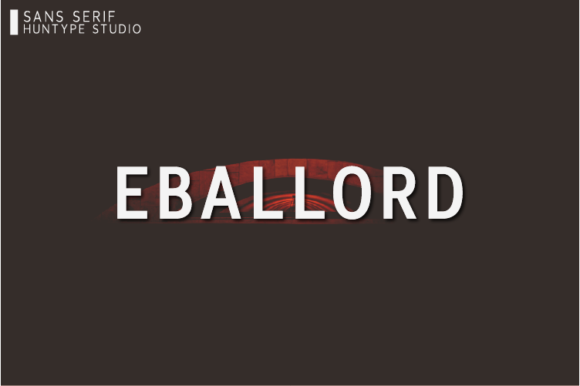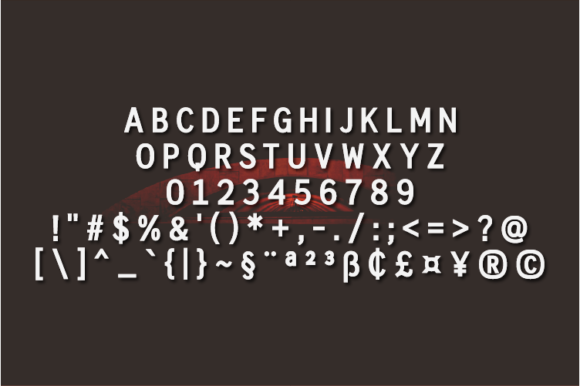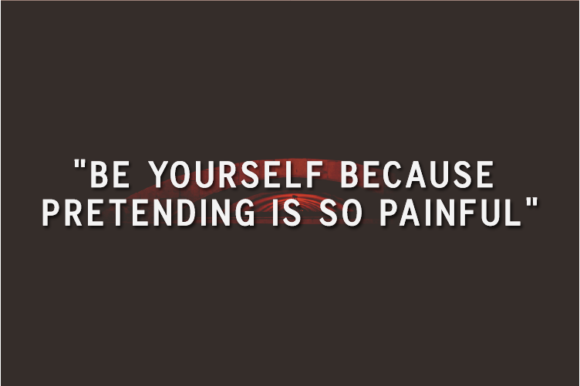
Have you ever stared at a blank page, waiting for the perfect font to bring your idea to life? That’s a familiar feeling for many designers and creatives. We’ve all been there, scrolling through font options, searching for the perfect match. And then, you see it – a clean, modern sans serif font that makes everything click into place.
Meet the Eballord Font, a minimal and neat sans serif font designed to elevate your creative projects. With its versatility and ease of use, Eballord Font is the perfect addition to any design. Whether you’re working on a branding project, creating a website, or designing a marketing campaign, Eballord Font is sure to make your ideas stand out. As a valuable resource for designers, Eballord Font offers endless possibilities for creative expression.
Eballord Font Key Features
- Font Family: Eballord Font is a sans-serif typeface designed for modern digital use.
- Character Set: The font includes a comprehensive set of characters, including uppercase and lowercase letters, numbers, punctuation, and symbols.
- Size and Resolution: The font is available in 4 weights (Light, Regular, Medium, and Bold) and 3 styles (Regular, Italic, and Bold Italic) with a recommended size range of 12-24 points and a resolution of 300 DPI.
- Unique Characteristics: Eballord Font features clean lines, geometric shapes, and a minimalist aesthetic, making it suitable for modern branding, digital products, and user interfaces.
Eballord Font Review
As a designer, I’ve had the chance to work with Eballord Font, and I’m here to share my honest thoughts on this font.
- Clean Lines – Eballord Font has a minimalist aesthetic, making it perfect for modern designs. The clean lines and simple shapes create a visually appealing look.
- High Legibility – The font is highly legible, making it ideal for large blocks of text. It’s easy to read, even at small font sizes.
- Multiple Weight Options – Eballord Font comes in multiple weights, allowing for flexibility in design. You can choose from light to bold to create a balanced look.
- Lack of Expressiveness – While Eballord Font is clean and simple, it can also be a bit too plain for some designs. It may not be the best choice for projects that require a lot of personality or flair.
- Not Ideal for Script-Based Text – The font is designed for body text, not script-based text. It can look a bit awkward when used for cursive or handwritten text.
Eballord Font is a solid choice for modern designs, but it may not be the best fit for every project. If you’re looking for a clean, legible font with multiple weight options, Eballord Font is worth considering. However, if you need a font with a lot of personality or expressiveness, you may want to look elsewhere.
Tips for Getting the Most Out of Eballord Font
Here are some tips for getting the most out of Eballord Font:
- Use Eballord Font for headings and titles to add a touch of elegance.
- Pair Eballord Font with other fonts to create a unique and interesting typography.
Eballord Font is commonly used in:
- Graphic design and visual identity projects.
- Alternatives to Eballord Font
Bebas Neue is a modern sans-serif font with a strong, geometric feel. It is ideal for use in headlines, titles, and other display text where a bold and eye-catching font is desired. Bebas Neue is a more geometric and modern take on the Eballord Font, with a more pronounced x-height and a slightly more condensed width.
Montserrat is a sans-serif font with a strong, geometric feel and a urban, industrial aesthetic. It is ideal for use in body text, where a clean and readable font is desired. Montserrat is a more condensed and narrow font compared to Eballord, making it ideal for use in small spaces or on mobile devices.
Open Sans is a modern sans-serif font with a clean and neutral aesthetic. It is ideal for use in body text, where a clear and readable font is desired. Open Sans is a more rounded and friendly font compared to Eballord, making it ideal for use in corporate or business contexts.